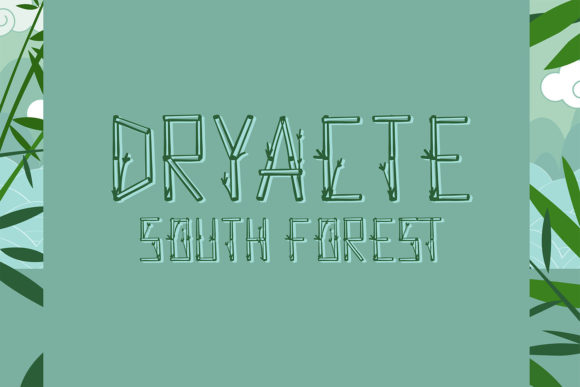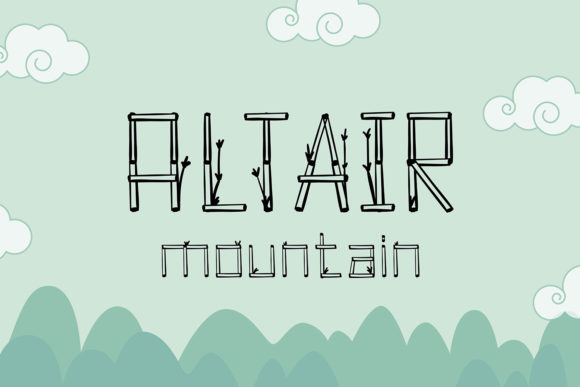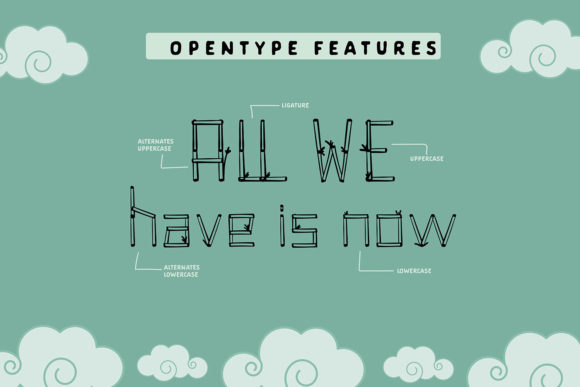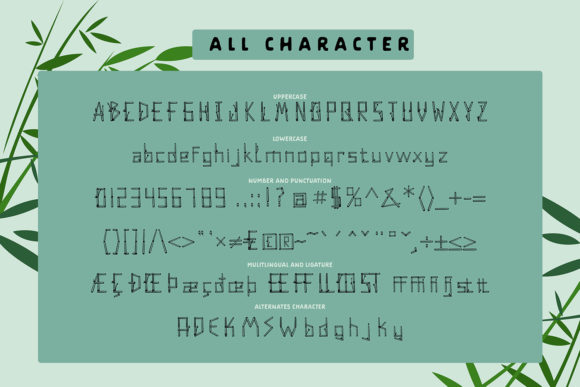
Bamboo Font: Add a Touch of Whimsy to Your Designs
Bamboo is a playful decorative font that’s perfect for adding a touch of whimsy to your designs. Whether you’re creating greeting cards, branding materials, quotes, posters, or any other type of visual project, Bamboo font is sure to make your designs stand out. In this article, we’ll take a closer look at the Bamboo font and explore its features, uses, and benefits.
What is Bamboo Font?
Bamboo font is a decorative font that’s designed to resemble handwritten text with a playful, carefree feel. The font features bold lines, irregular shapes, and a lively texture that gives it a unique and eye-catching appearance. Bamboo font is perfect for designers and crafters who want to add a personal touch to their projects and make them more visually appealing.
Key Features of Bamboo Font
- Playful and decorative: Bamboo font has a fun and playful vibe that’s perfect for creating eye-catching designs.
- Handwritten feel: The font has a handwritten feel that’s irregular and imperfect, giving it a personal and unique touch.
- Bold lines: Bamboo font features bold lines that make it easy to read and add emphasis to your text.
- Versatile: The font is versatile and can be used for a wide range of projects, from greeting cards to posters and branding materials.
Uses of Bamboo Font
Bamboo font is perfect for a variety of design projects, including:
- Greeting cards: Add a personal touch to your greeting cards with Bamboo font.
- Branding materials: Use Bamboo font to create unique and eye-catching branding materials, such as logos, business cards, and letterheads.
- Quotes and posters: Bamboo font is perfect for creating inspirational quotes and posters that grab attention.
- Social media graphics: Use Bamboo font to create engaging social media graphics that stand out.
- Crafting projects: Bamboo font is also perfect for crafters who want to add a personal touch to their projects, such as scrapbooking, journaling, and card making.
Benefits of Using Bamboo Font
Using Bamboo font in your designs offers several benefits, including:
- Unique and eye-catching: Bamboo font adds a unique and eye-catching touch to your designs, making them stand out from the crowd.
- Personal touch: The font’s handwritten feel adds a personal touch to your designs, making them more relatable and engaging.
- Versatile: Bamboo font is versatile and can be used for a wide range of projects, making it a great addition to your font library.
Bamboo font is a playful decorative font that’s perfect for adding a touch of whimsy to your designs. With its bold lines, irregular shapes, and lively texture, Bamboo font is sure to make your designs stand out. Whether you’re a designer or crafter, Bamboo font is a great addition to your font library, offering a unique and eye-catching touch to your projects. So why not give Bamboo font a try and see how it can elevate your designs?